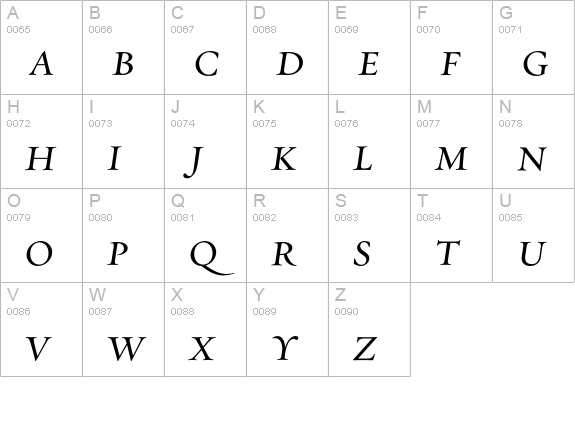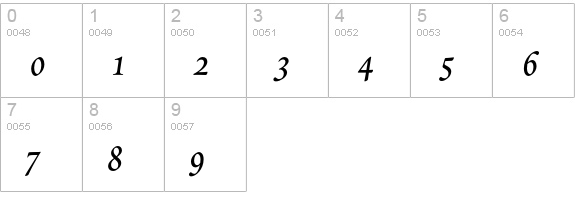
RequiemText-HTF-Italic Font Details
RequiemText-HTF-Italic is a distinctive, italic variant in the RequiemText typeface family \xE2\x80\x94 well suited to design and typography projects.
RequiemText-HTF-Italic font is an exquisite typographic masterpiece that effortlessly combines elegance with a touch of sophistication. Its sleek and slanted letters exude a sense of grace and modernity, making it the perfect choice for any design project that demands a refined aesthetic. The italicized variant of the RequiemText-HTF font family, RequiemText-HTF-Italic, adds a unique twist to this already captivating typeface. With its subtly angled letterforms, this font effortlessly conveys a sense of movement and dynamism, making it an excellent choice for conveying a sense of energy and excitement. The beautifully designed characters of RequiemText-HTF-Italic font are carefully crafted to ensure maximum legibility and readability, even at smaller sizes. Whether used for headlines, body text, or even branding materials, this font will captivate your audience and leave a lasting impression. But what sets RequiemText-HTF-Italic font apart from others is the fact that it is available for free. Yes, you read that right - this stunning font can be freely downloaded at FontsMarket.com. This means that you can add a touch of elegance and sophistication to your designs without breaking the bank. So go ahead and explore the endless possibilities that RequiemText-HTF-Italic font offers. Whether you're designing a logo, creating a website, or working on a print project, this font will elevate your design to new heights. Download it now from FontsMarket.com and let your creativity soar.